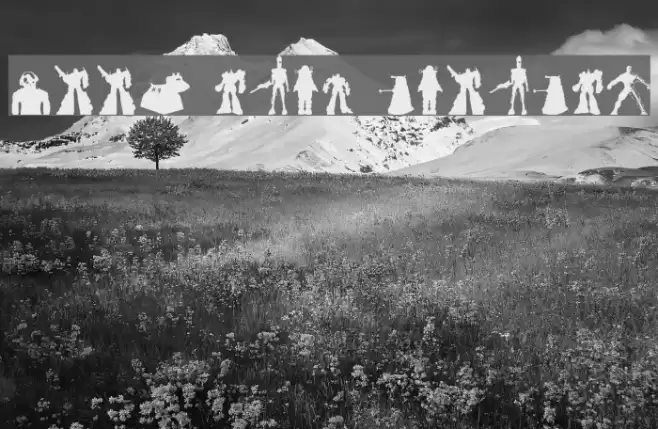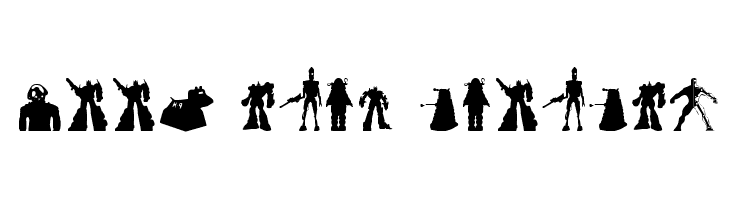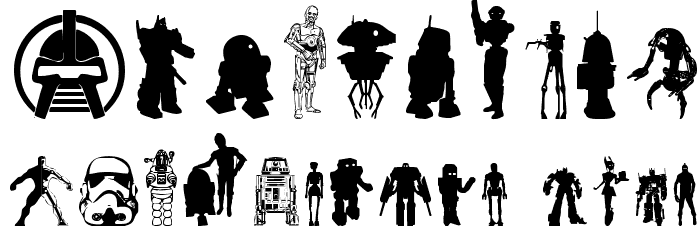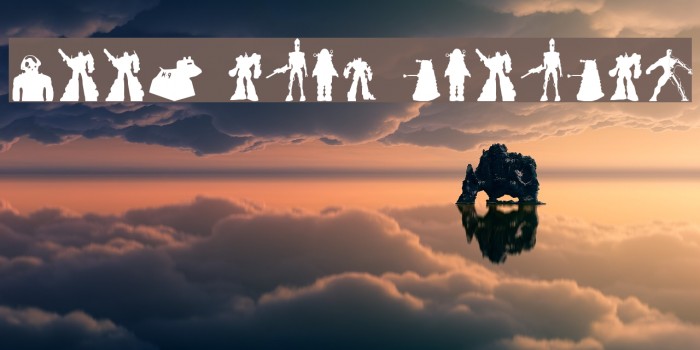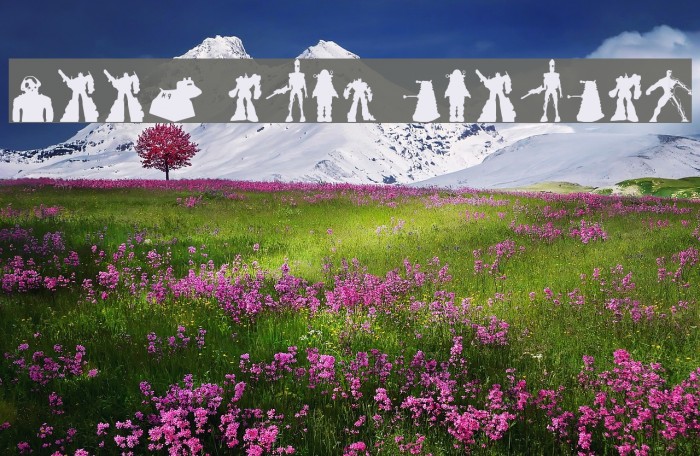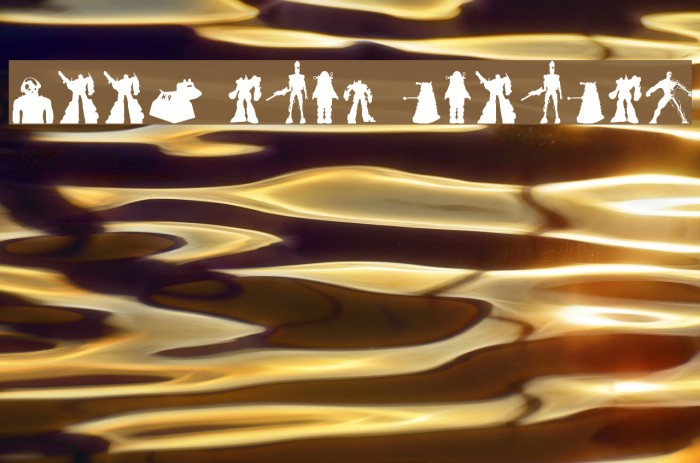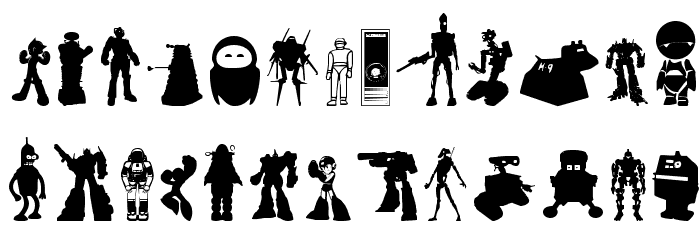
Look sir, droids! Font
Look sir, droids! Description
A decorative display font composed entirely of robot and android silhouettes, each character represented by a unique robot figure in solid black or outlined style. The glyphs are highly stylized and illustrative, lacking traditional letterforms, and are designed for visual impact rather than readability.
A decorative font made of diverse robot silhouettes from Dingbats fonts.
- Proposed Projects: Posters, sci-fi themed events, party invitations, children's books, novelty merchandise, tech branding.
- Overall Style: Decorative, Sci-fi, Playful
- Use Case: Logos, Headlines, Posters, Themed graphics